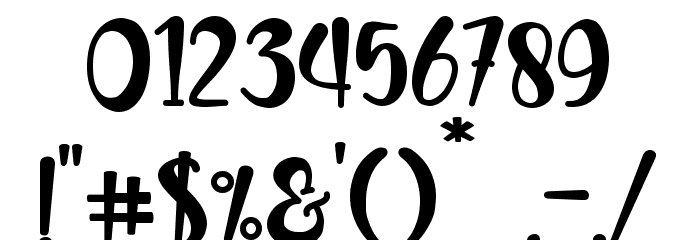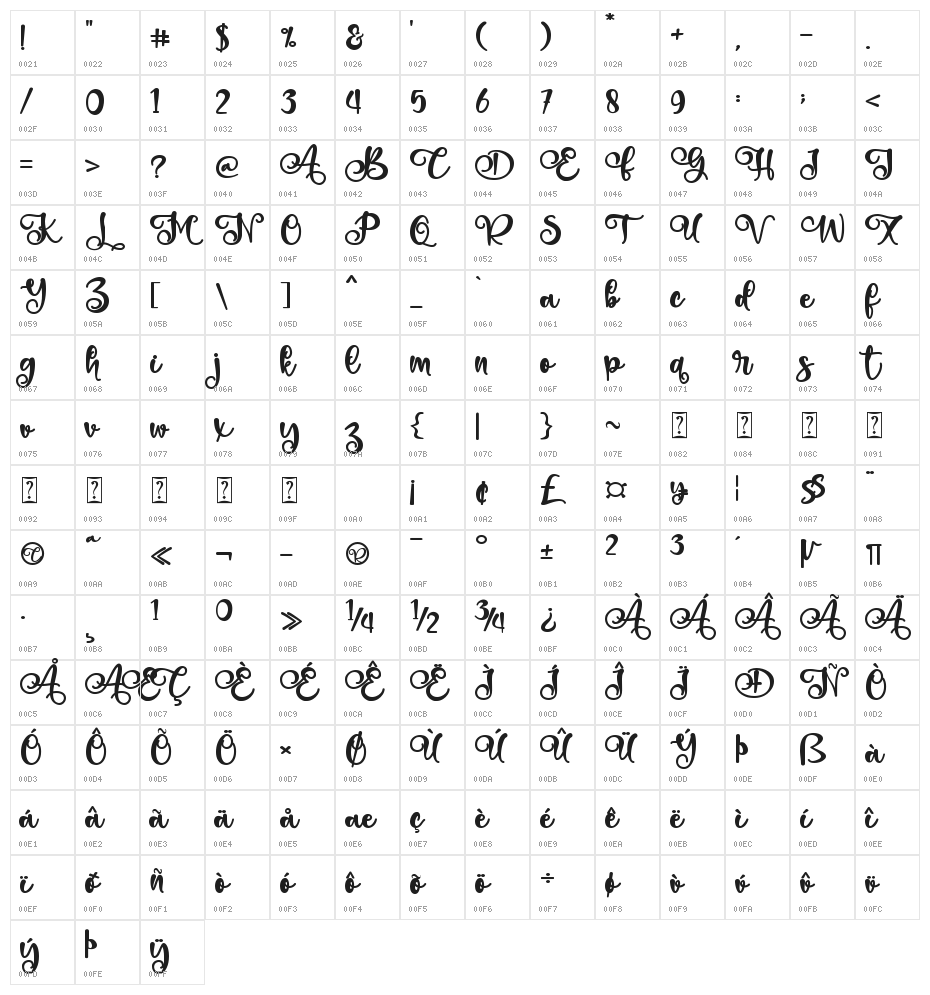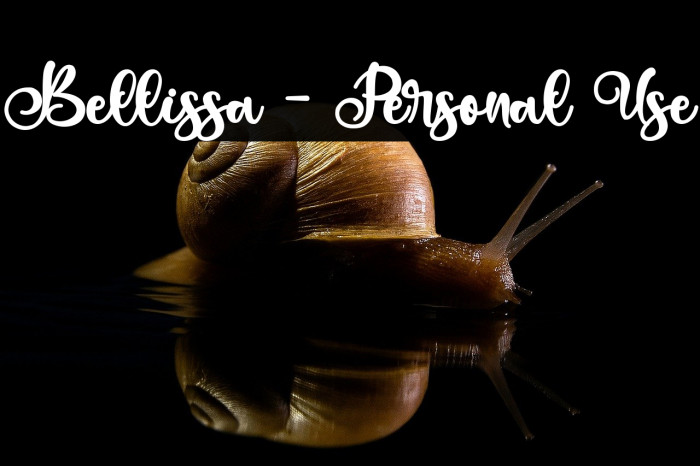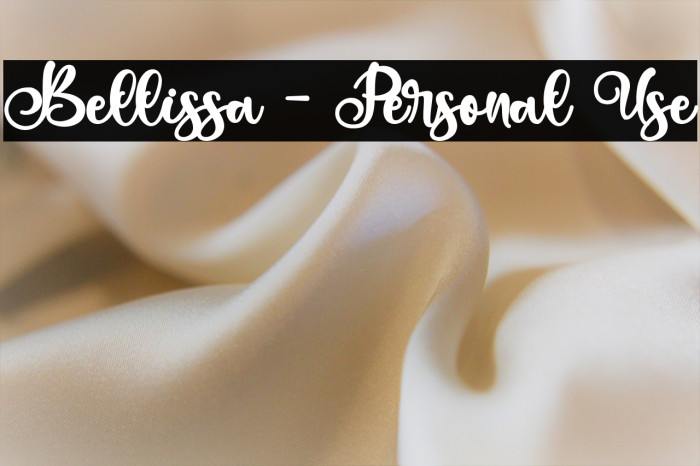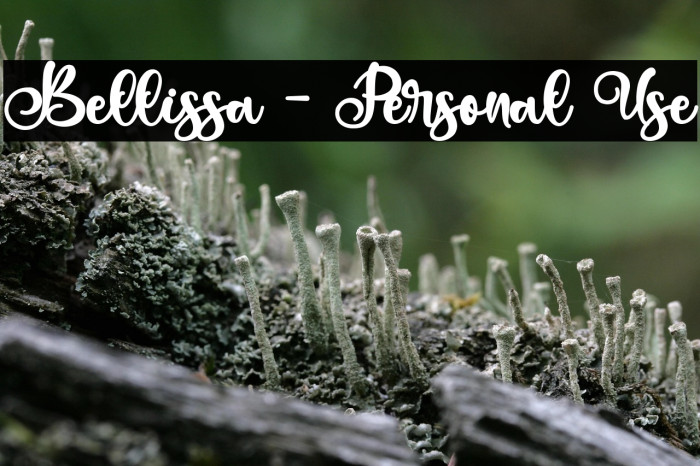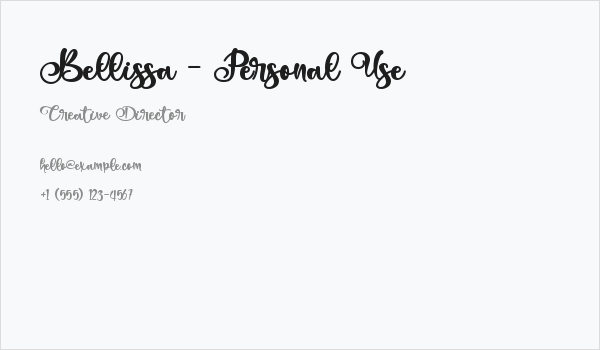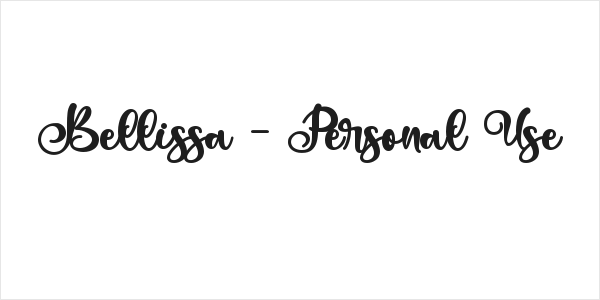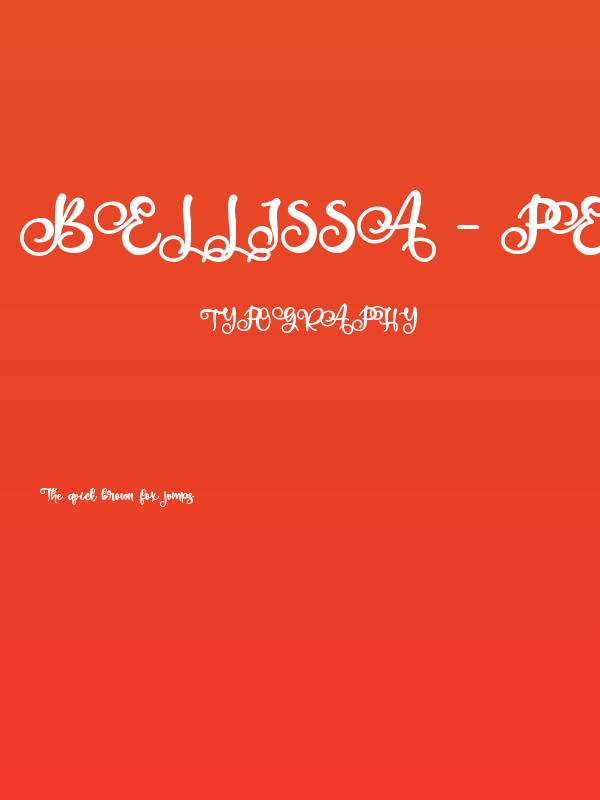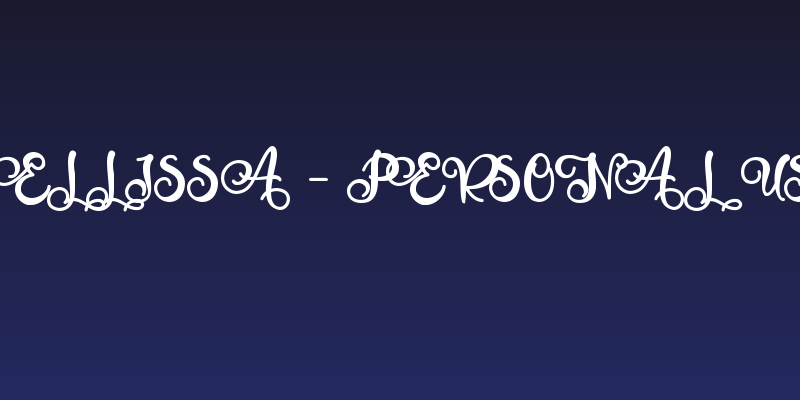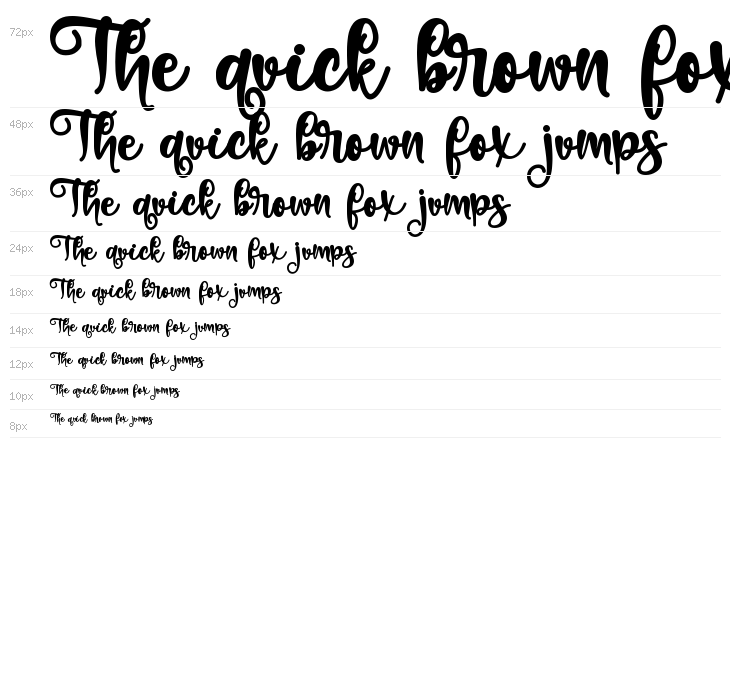
Bellissa - Personal Use Font
Bellissa - Personal Use Description
This font features an elegant and flowing script style, characterized by its intricate loops and swirls. The uppercase letters are ornate, with each character displaying unique flourishes that add a touch of sophistication. The lowercase letters maintain a consistent style, with smooth curves and a slightly bolder appearance, enhancing readability while preserving the decorative nature. Numerals are clear and bold, complementing the overall aesthetic. Special characters are designed with the same attention to detail, ensuring a cohesive look across all text elements. This font is ideal for projects that require a personal and artistic touch.
Use CaseLogos, Headlines, Invitations
Proposed ProjectsIdeal for wedding invitations, greeting cards, branding, and logo design.